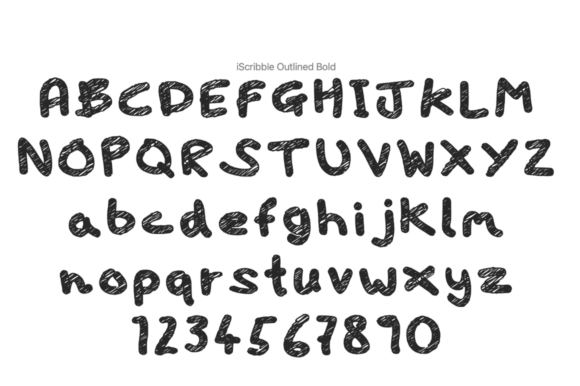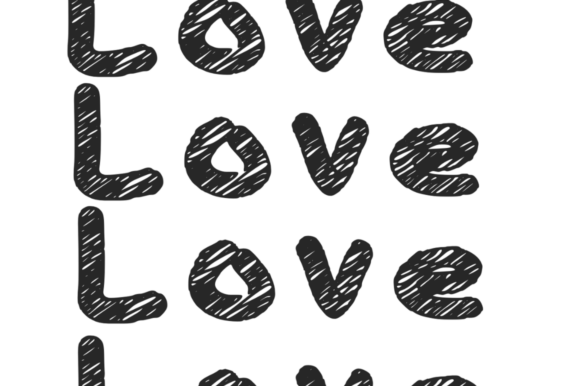
Introduction to Iscribble Font
iScribble is a modern display font, perfect for bold, fun, and funky designs.
Whether you’re using it for crafts, digital design, presentations, or making greeting cards, this font has the potential to become your favorite go-to font, no matter the occasion .
Key Features of Iscribble Font
Why Choose Iscribble Font?
Iscribble Font offers exceptional quality and versatility, making it a valuable addition to your design toolkit. Whether you’re creating for personal projects or commercial use, Iscribble Font delivers professional results.